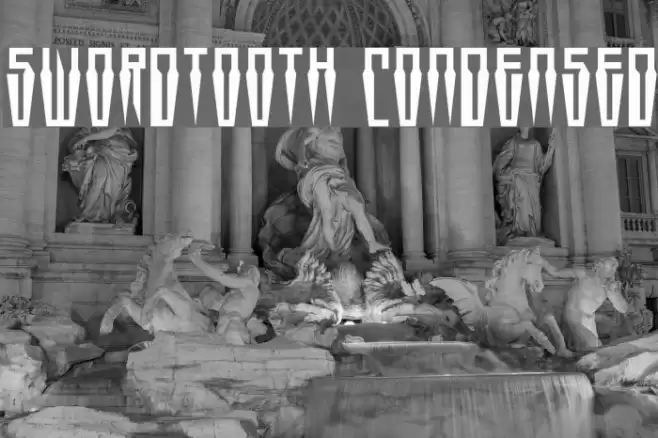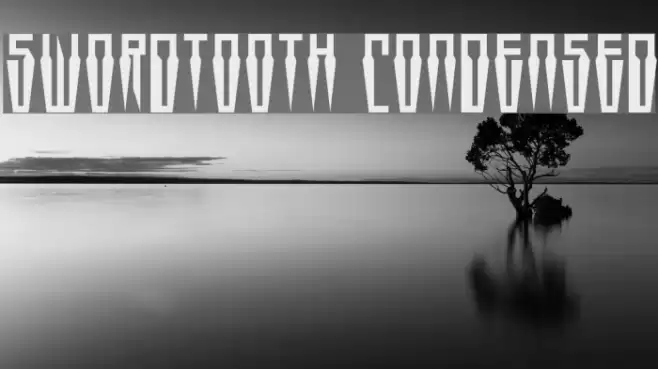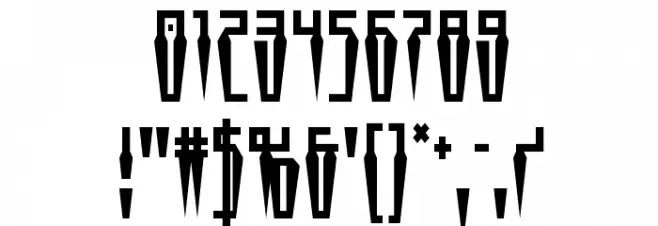
Swordtooth Condensed Font
Swordtooth Condensed Description
This font features a bold and striking design with sharp, angular edges reminiscent of sword blades. The characters are condensed, giving a tall and narrow appearance, which enhances its aggressive and dynamic style. The uppercase and lowercase letters maintain a consistent design, with pointed serifs and a geometric structure. Numbers and special characters follow the same aesthetic, ensuring uniformity across all glyphs. This font's unique style makes it stand out, ideal for projects that require a dramatic and impactful visual presence.
A bold, angular font with a condensed, sword-like design from Uncategorized fonts.
- Proposed Projects: Ideal for video game titles, movie posters, branding for edgy products, or any project needing a bold, dramatic typeface.